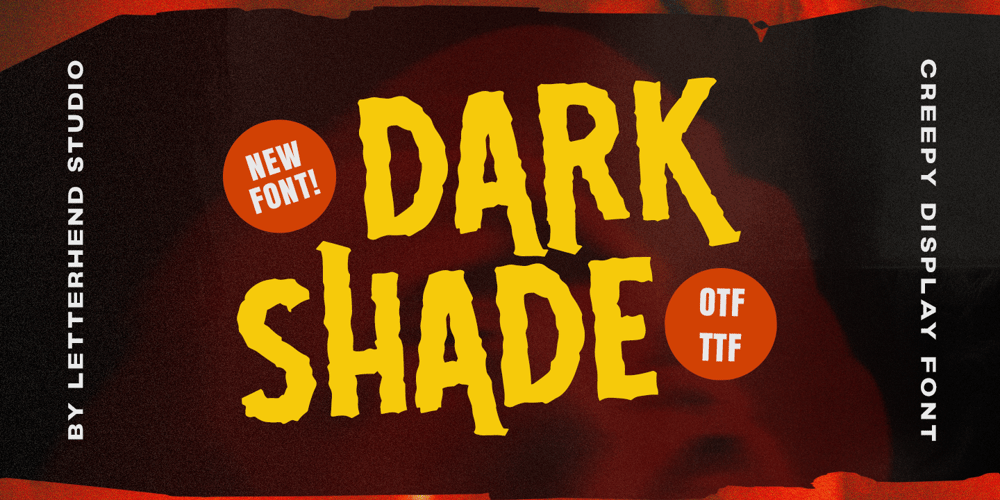
Dark Shade Font Family was designed by Hendry Juanda and published by Letterhend. Dark Shade contains 1 styles and family package options. Meet Dark Shade, the font that dares you to venture into the shadows where creepy and fascination intertwine. This font an aura of spine-tingling dread, perfect for instilling suspense but playful too in your designs. Whether you’re channeling classic horror or crafting a display masterpiece, Nights Side versatility is your creative companion. Features : Uppercase & lowercase Numbers and punctuation Alternates & Ligatures Multilingual PUA encoded